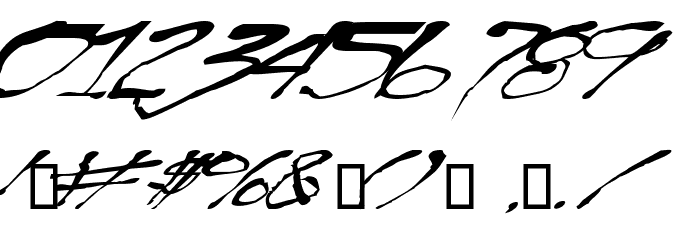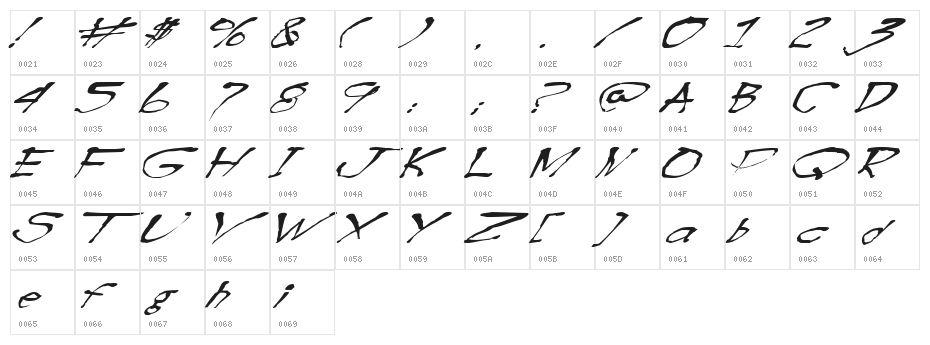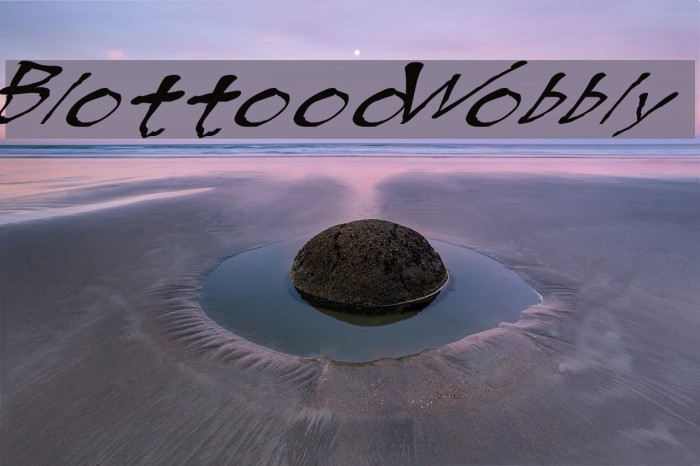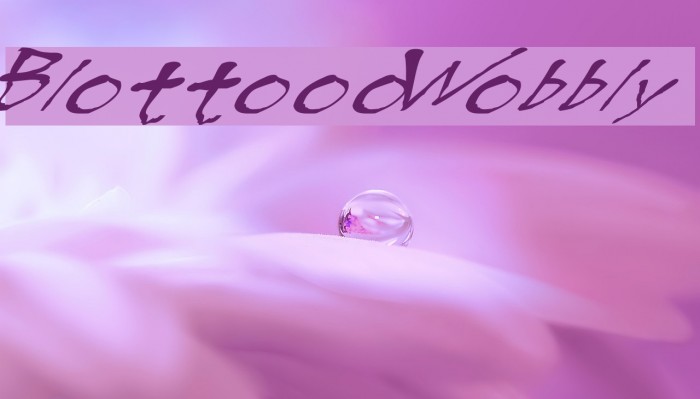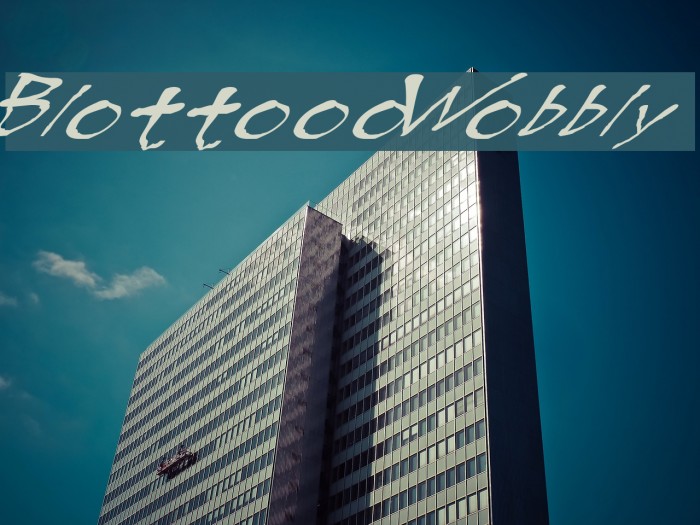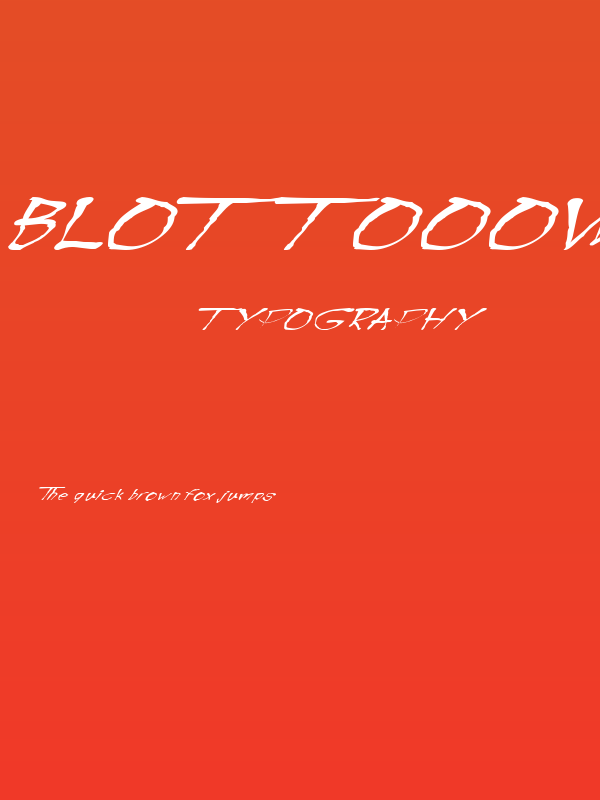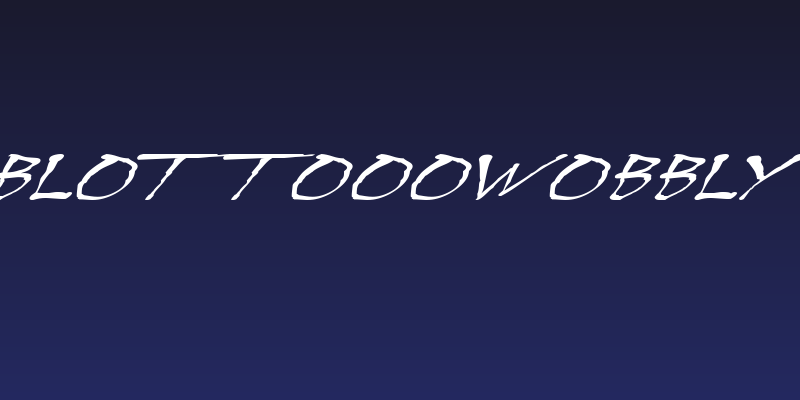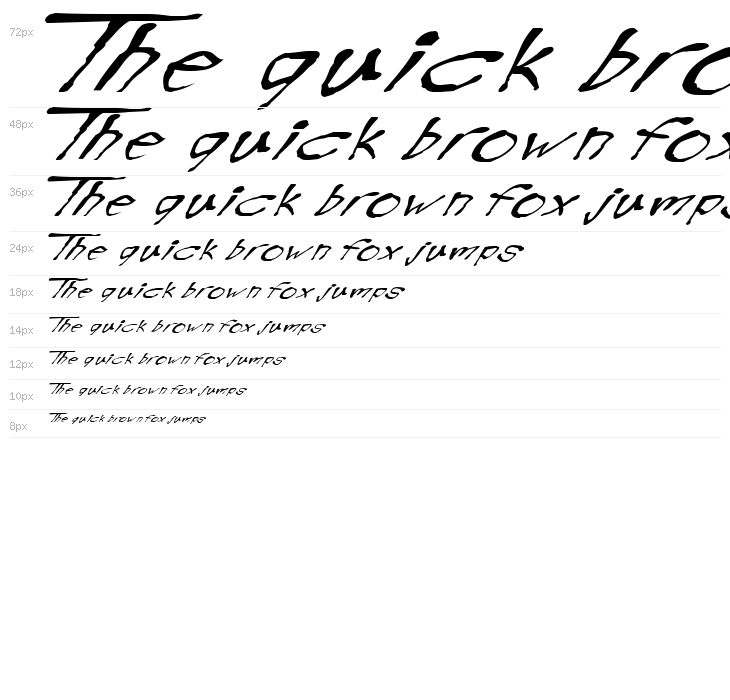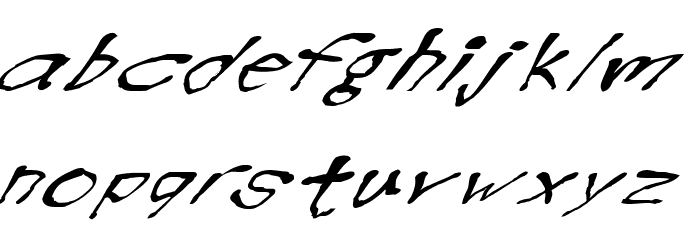
BlottoooWobbly Font
BlottoooWobbly Description
This font exhibits a dynamic and energetic style, characterized by its wobbly and irregular strokes that give it a hand-drawn appearance. The letters are slightly slanted, adding a sense of motion and fluidity. The uppercase and lowercase characters maintain a consistent style, with varying stroke thickness that adds to the font's lively and spontaneous feel. The numbers and special characters follow the same playful design, making it suitable for creative and informal projects. The overall aesthetic is bold and eye-catching, perfect for making a statement.
| Proposed Projects | Ideal for creative projects such as posters, invitations, and artistic branding. |